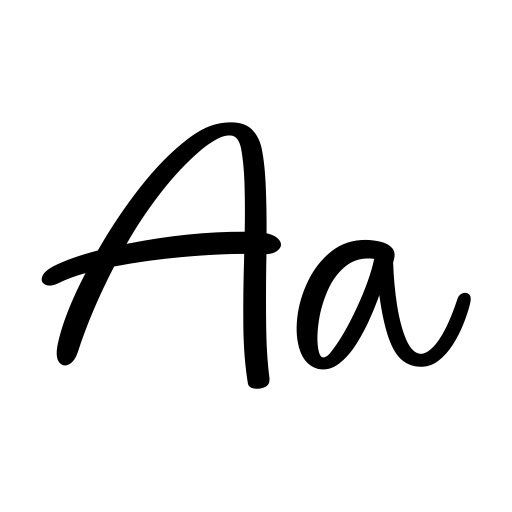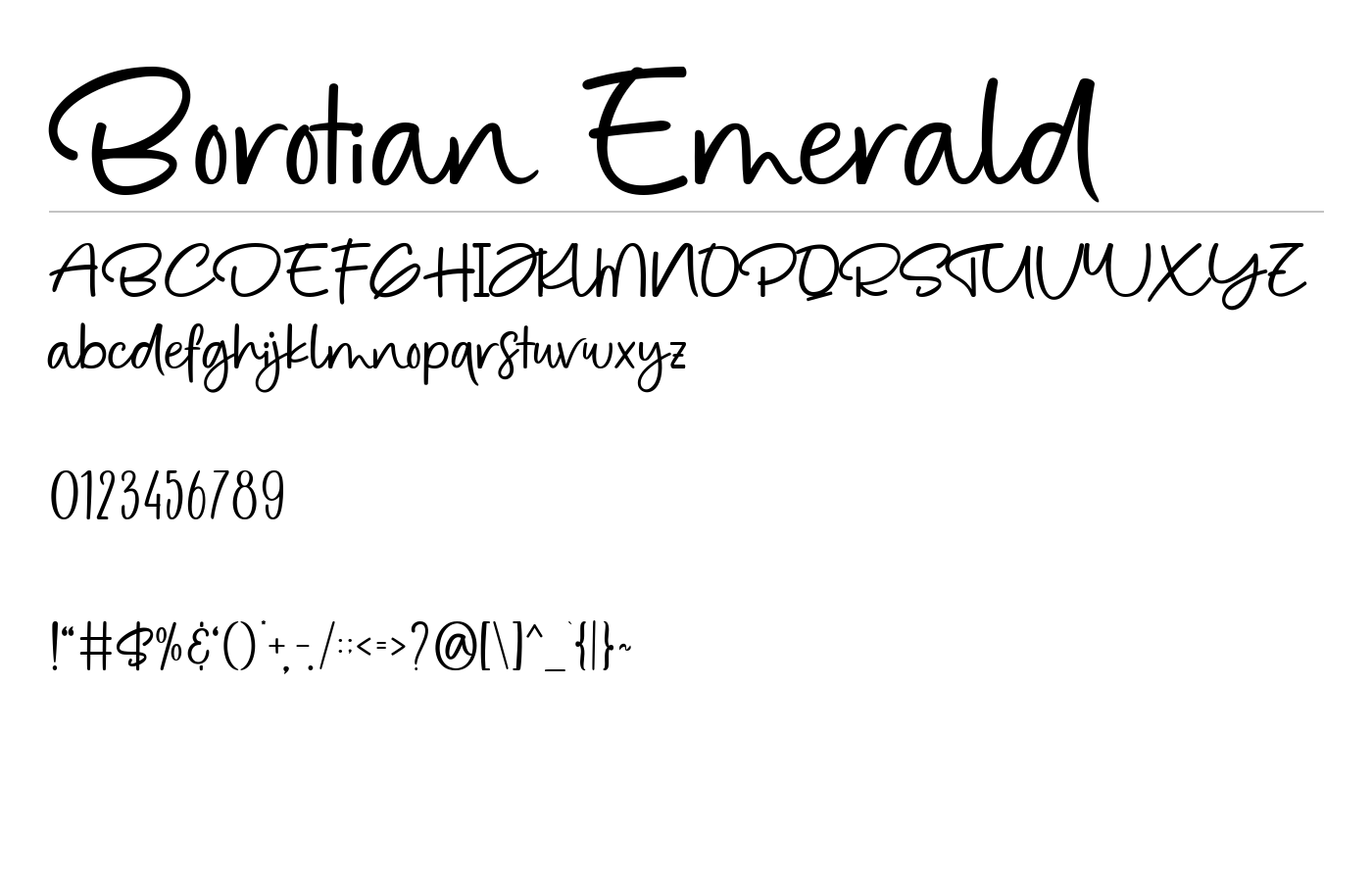
Borotian Emerald is a playful and casual handwritten font with a lively, personal touch. Its smooth strokes and slightly whimsical letterforms create an approachable and friendly feeling, making it ideal for creative projects, informal branding, and social media graphics. This font works especially well in headlines and short texts where a natural, expressive style is desired.
Borotian Emerald Font